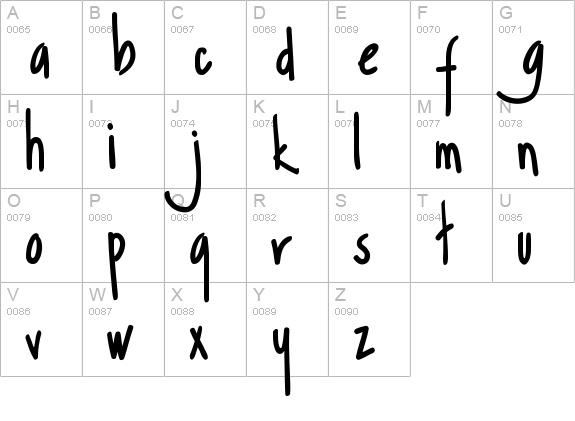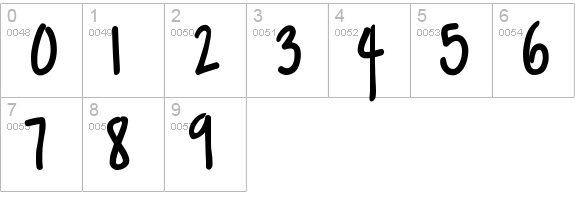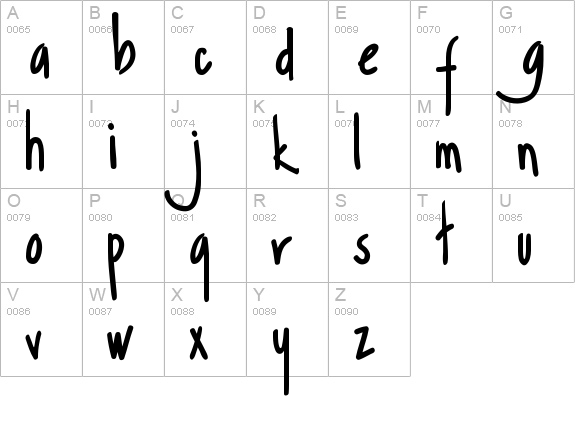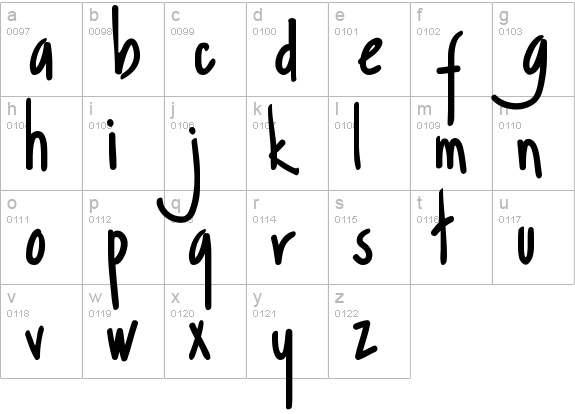
Margarosa Font Details
Introducing Margarosa, a stunning and elegant font that is sure to make your designs stand out! This versatile font combines classic style with a modern twist, making it perfect for a wide range of projects. Whether you're designing wedding invitations, branding materials, or social media graphics, Margarosa is the perfect choice to add a touch of sophistication. One of the best things about Margarosa is that it is completely free! Yes, you read that right - this beautiful font is freely available to download at FontsMarket.com. Now you can elevate your designs without breaking the bank. Don't miss out on the opportunity to add Margarosa to your font collection today!